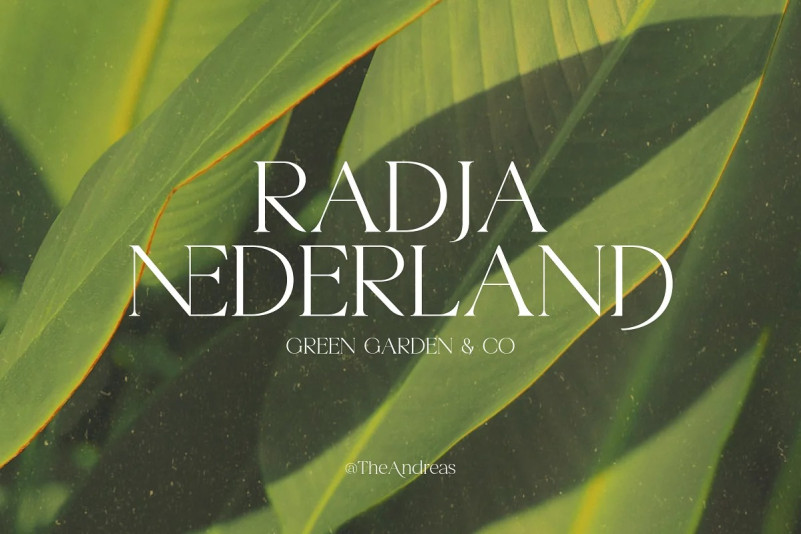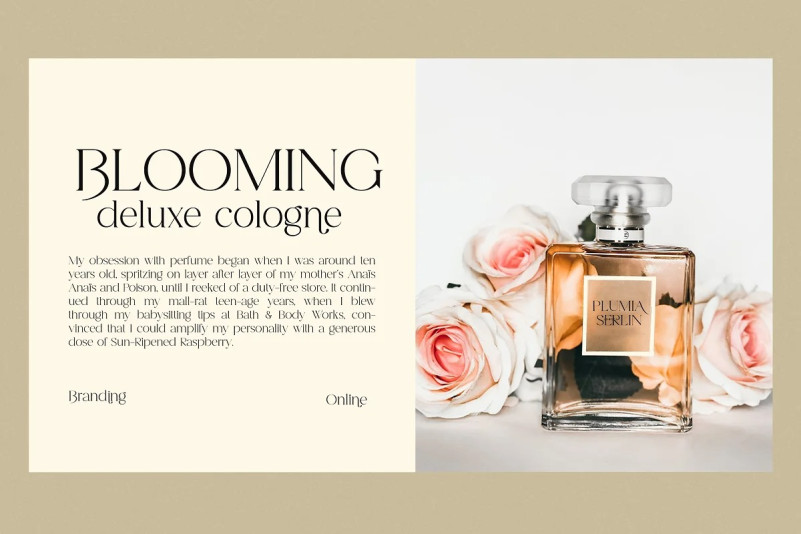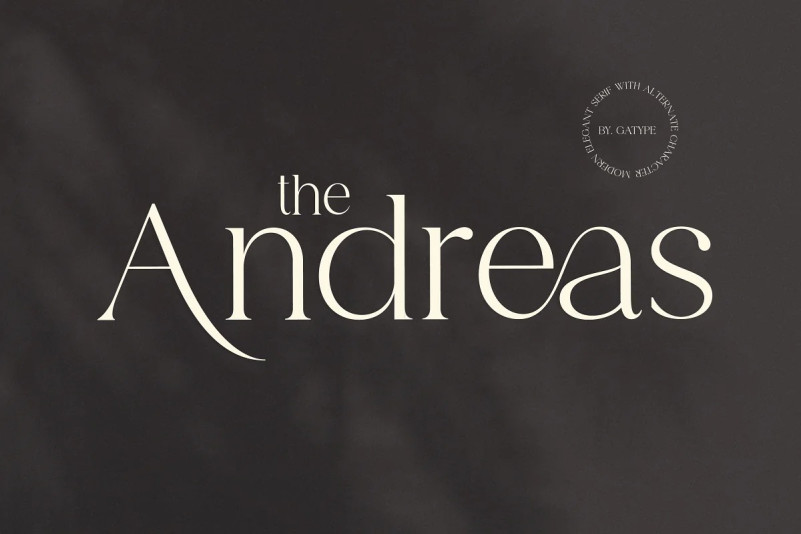
Andreas Font
The Andreas Serif font is perfect for branding, poster design, t-shirts, invitations, designs for kids, and editorial design. It comes with over 400 glyphs, including ligatures. OpenType features include style sets, character variants, starting and ending forms, and multilingual support.